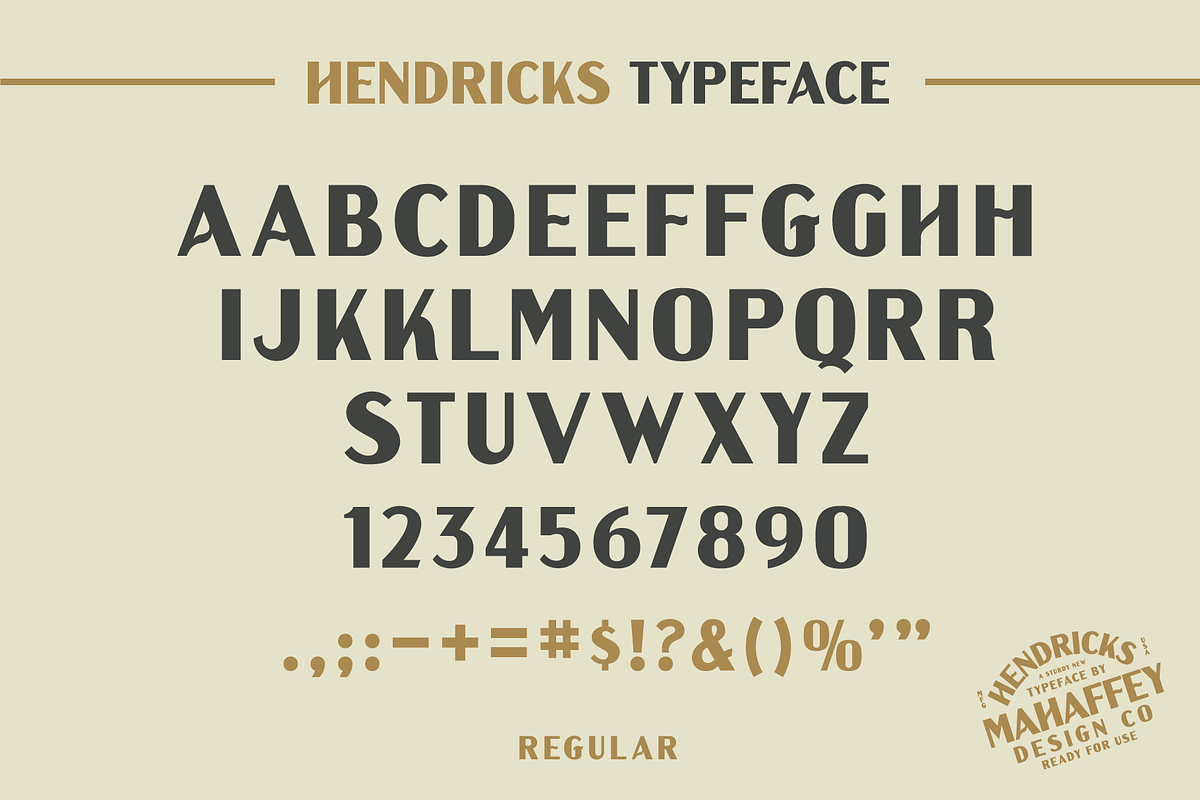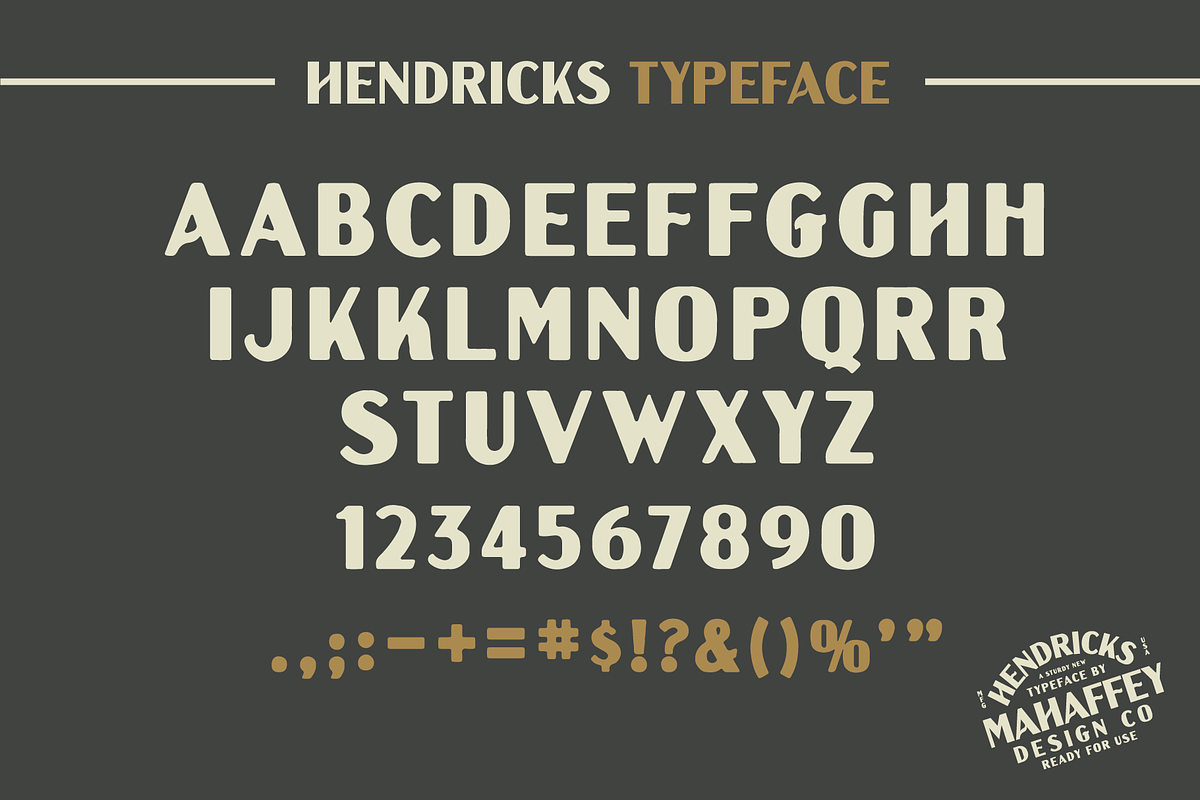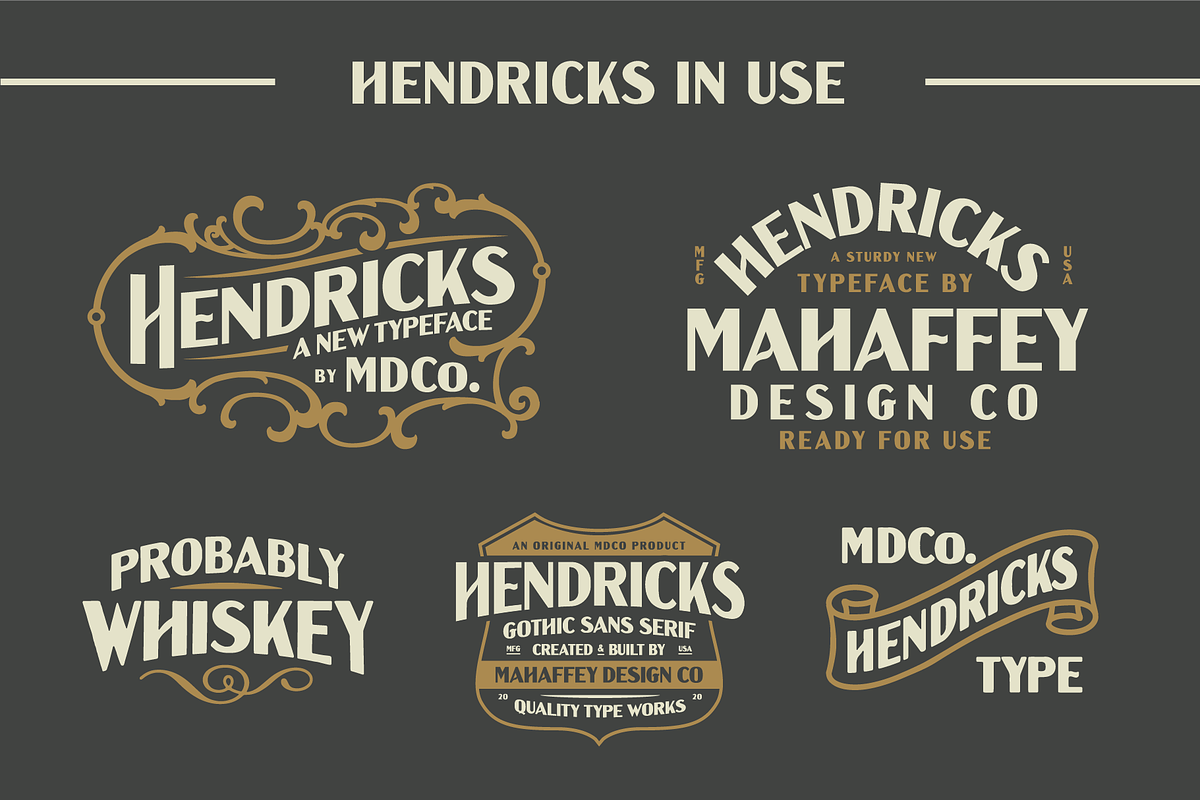
Hendricks - Old Time Sans
Hendricks is built with an old time touch. This typeface includes a handful of unique characters to give you some options when laying out your type, comes with a more regular style alternate to play it safe. Hendricks comes with basic capital characters, numbers. punctuation and a softer rounded version.